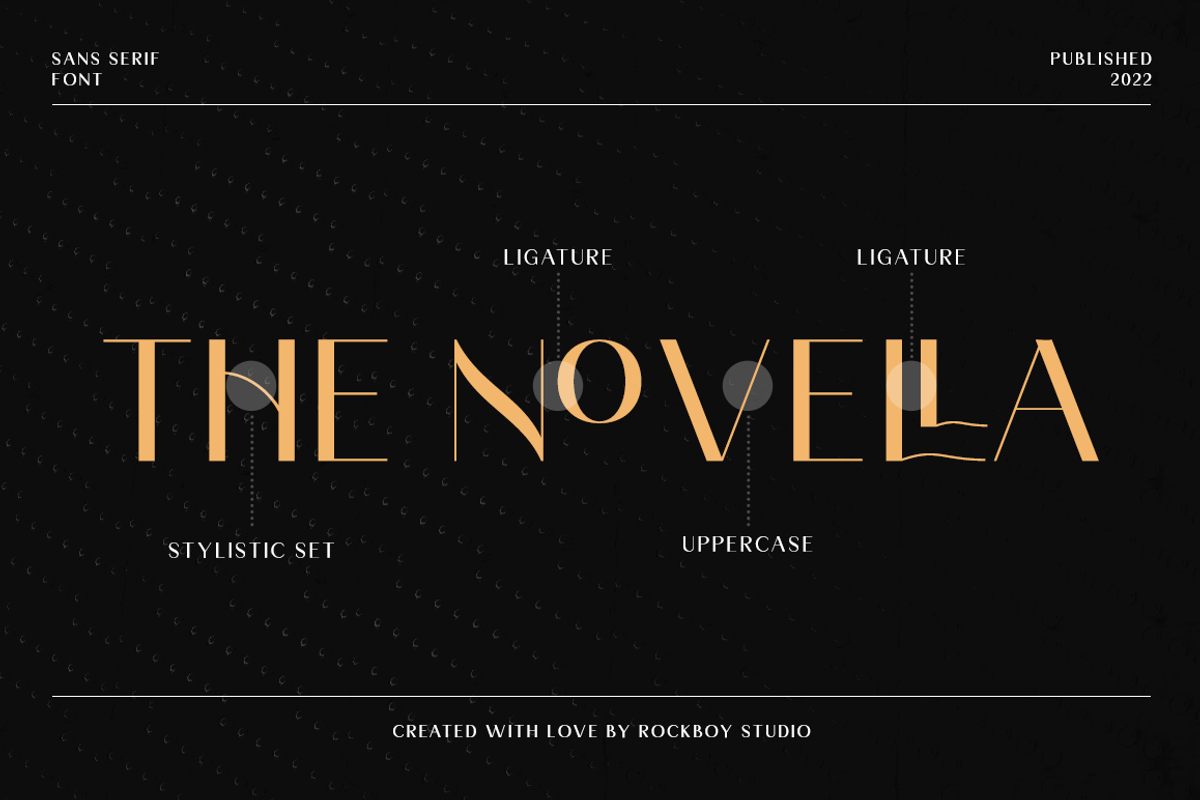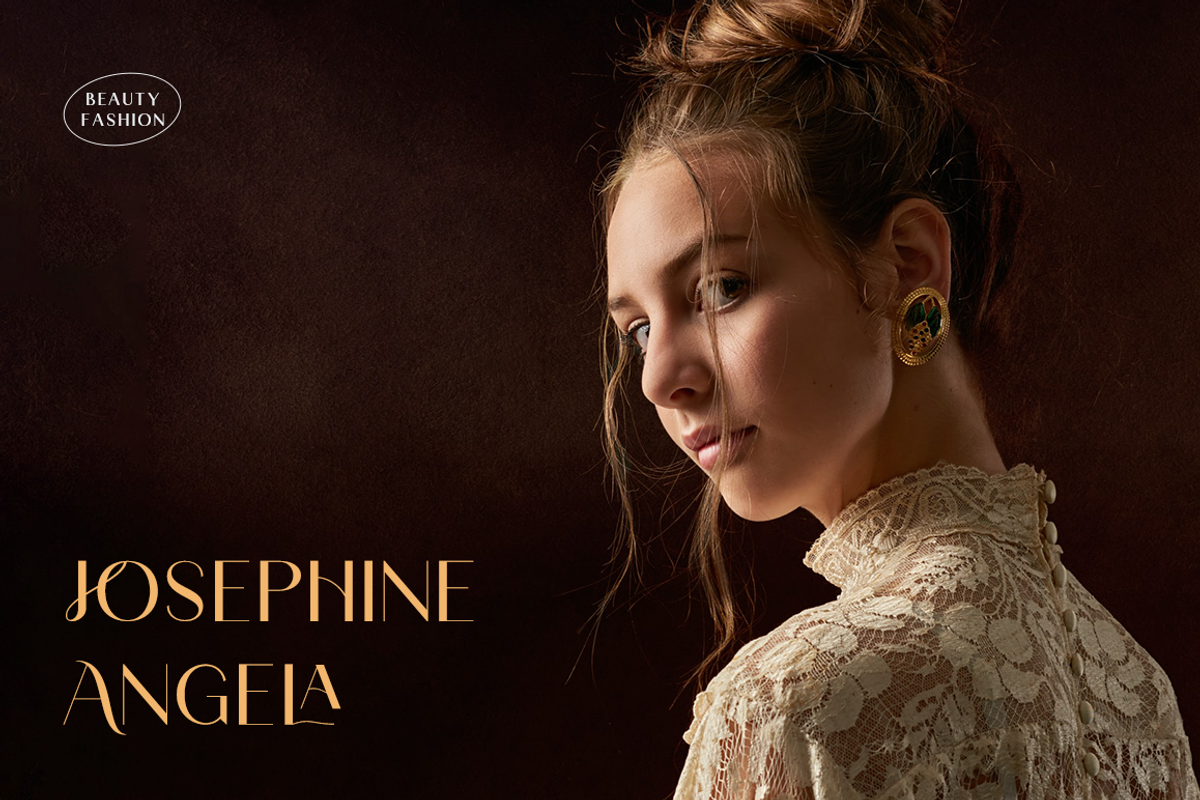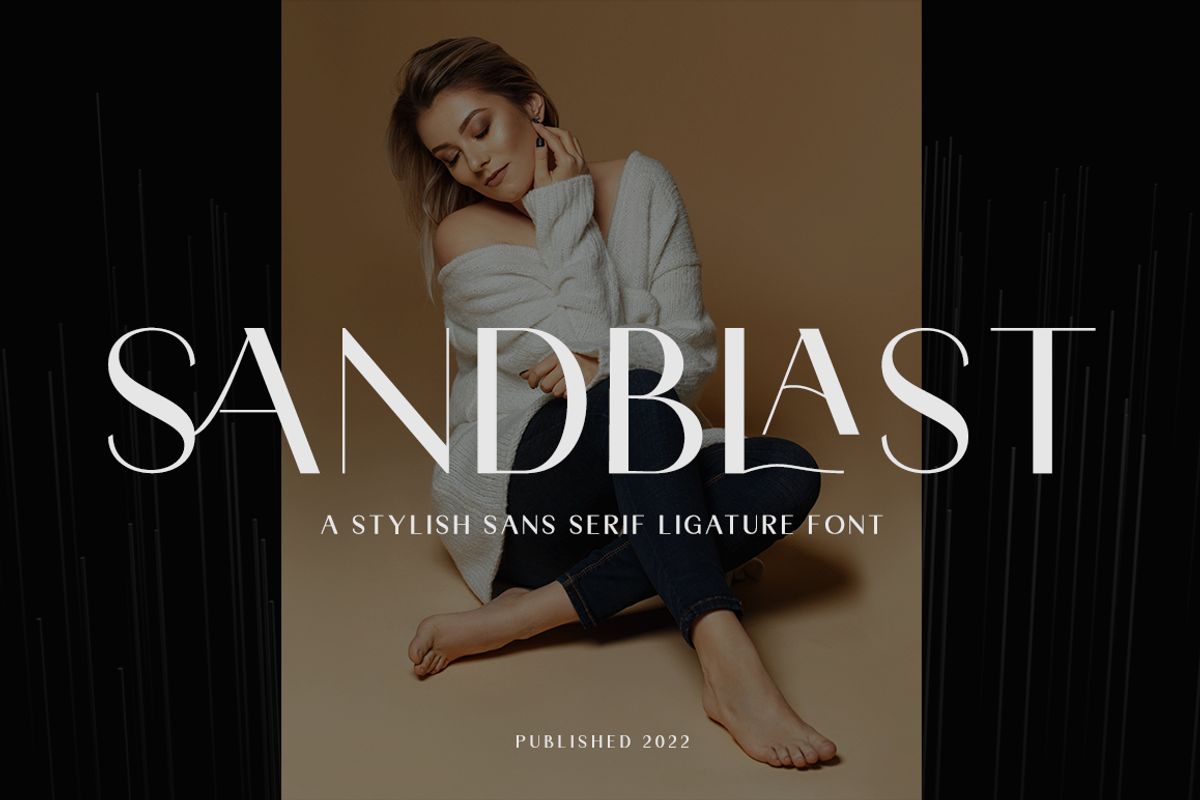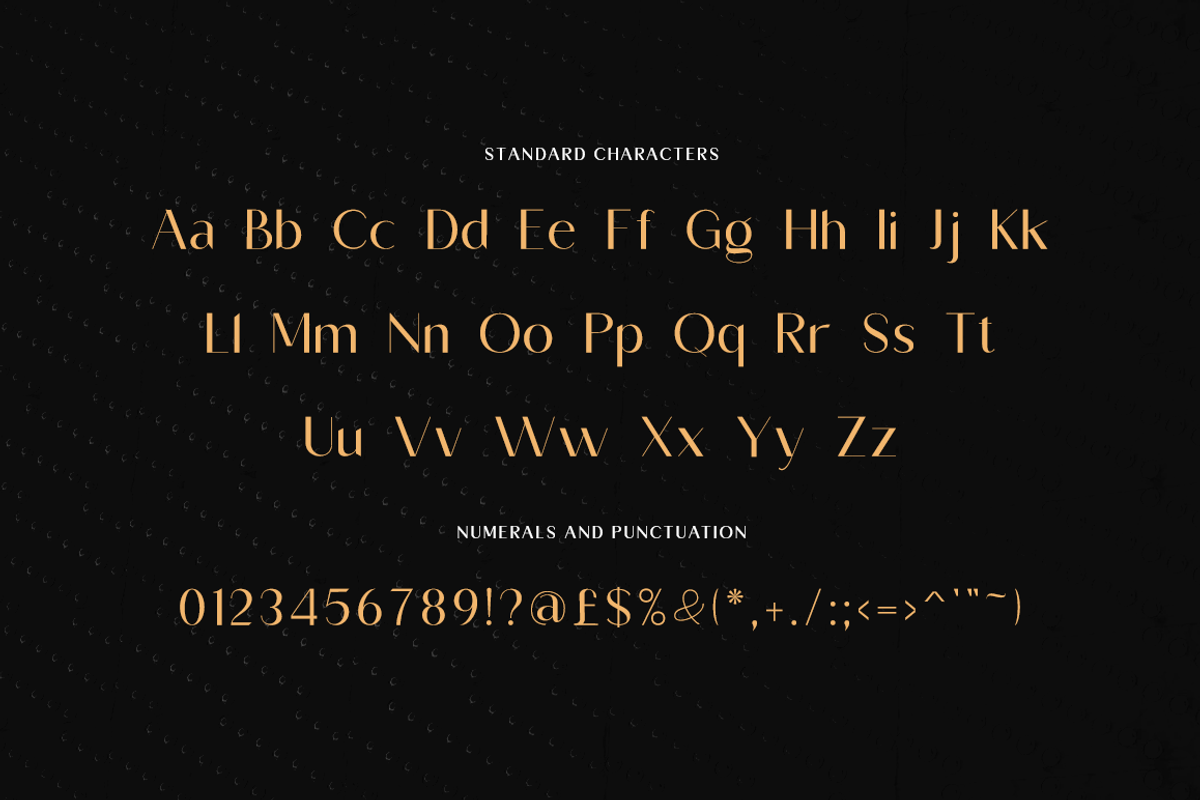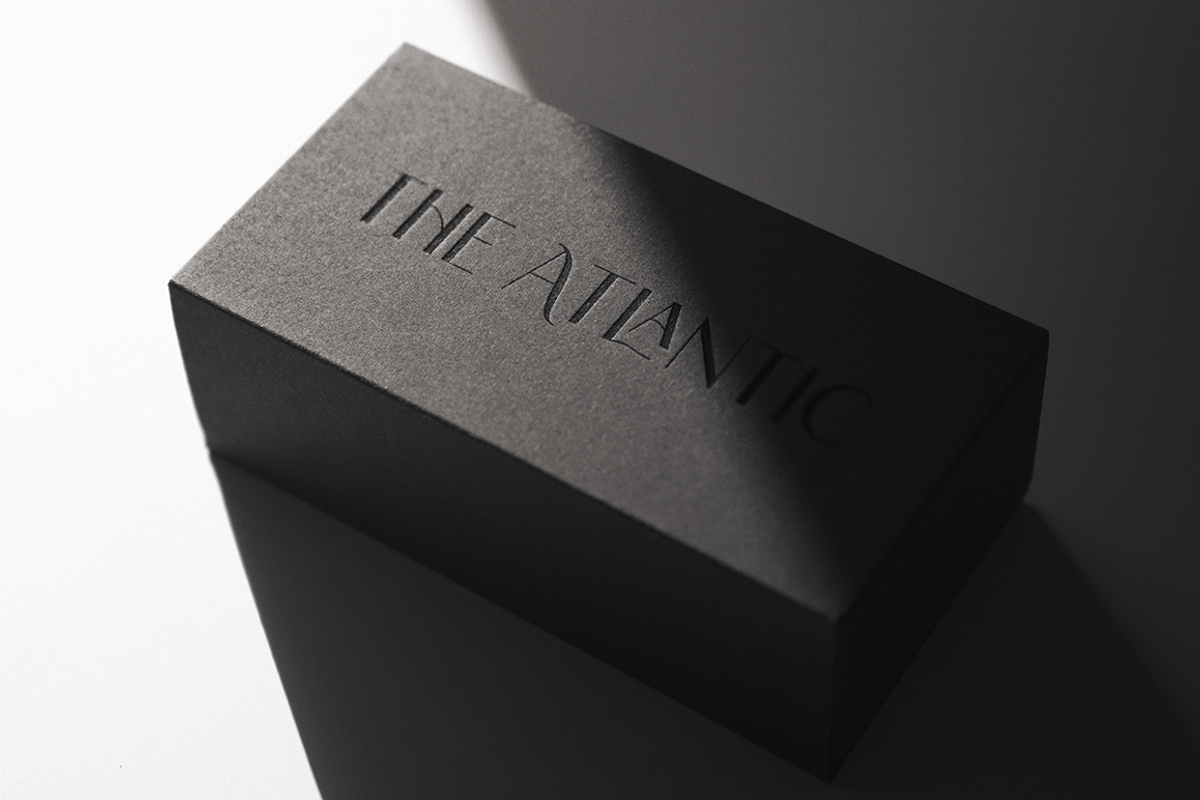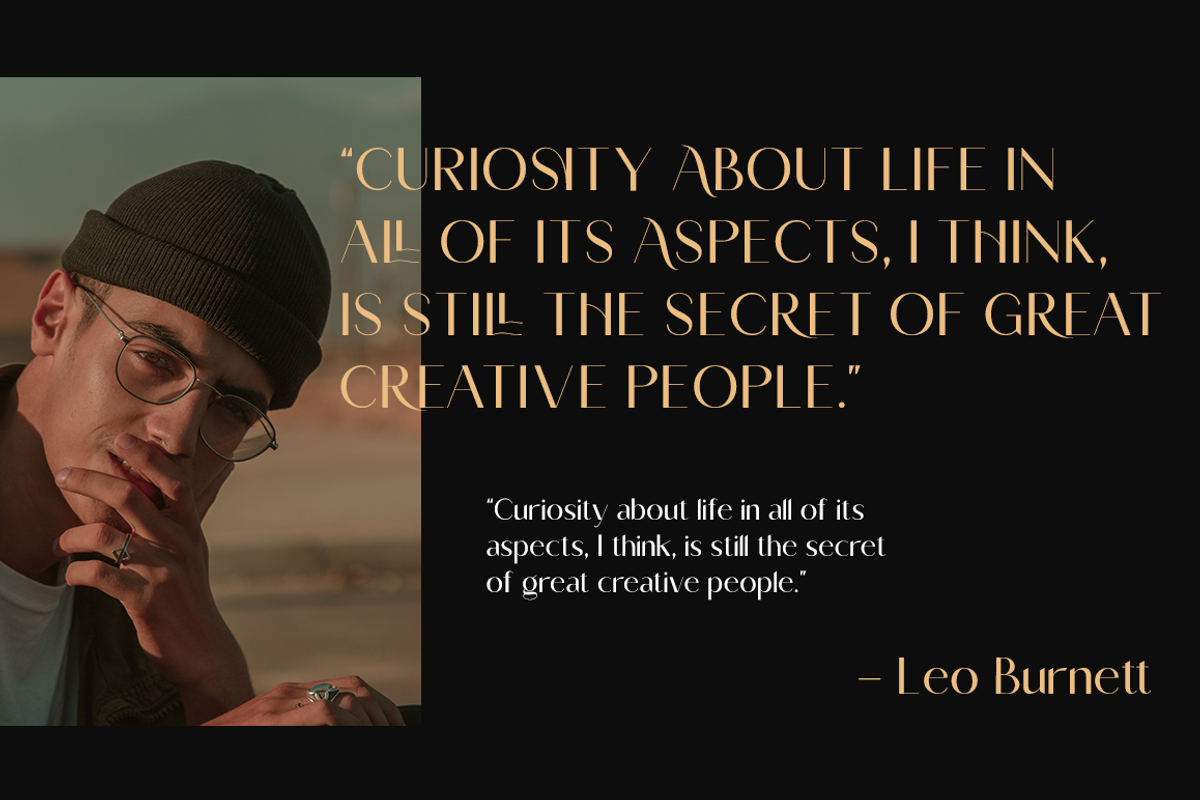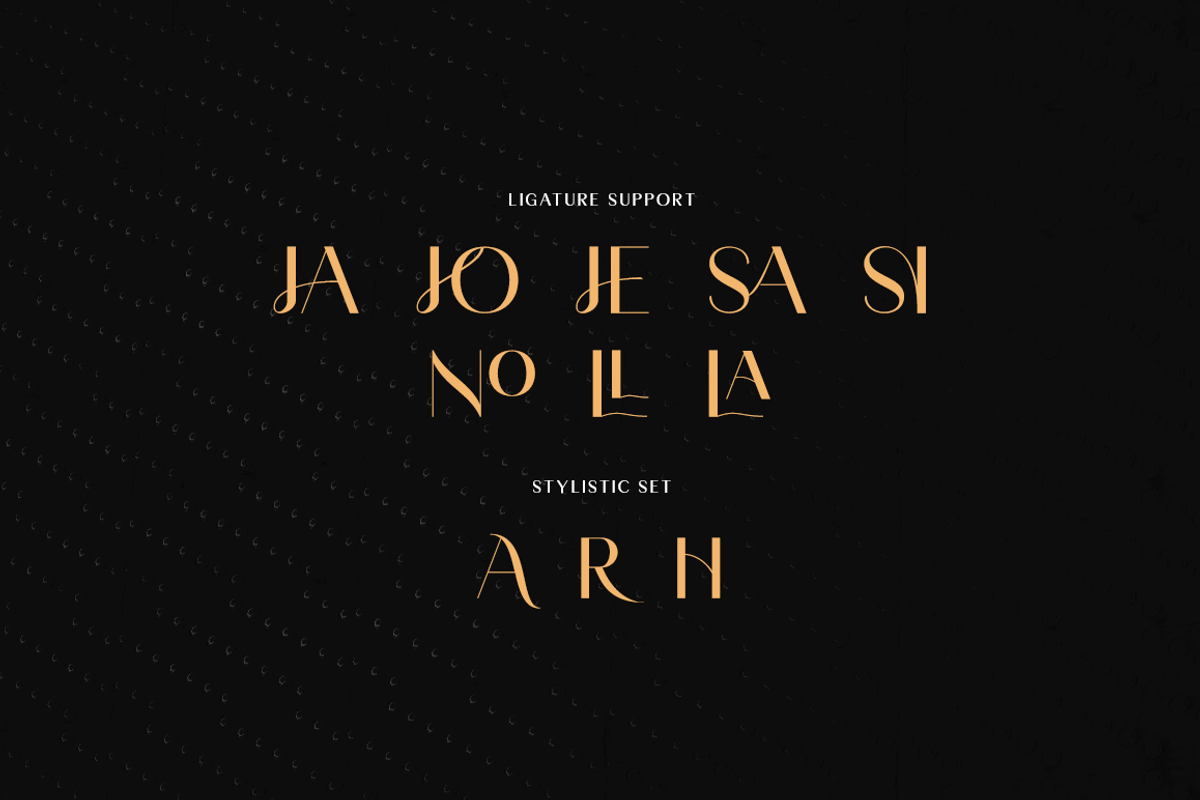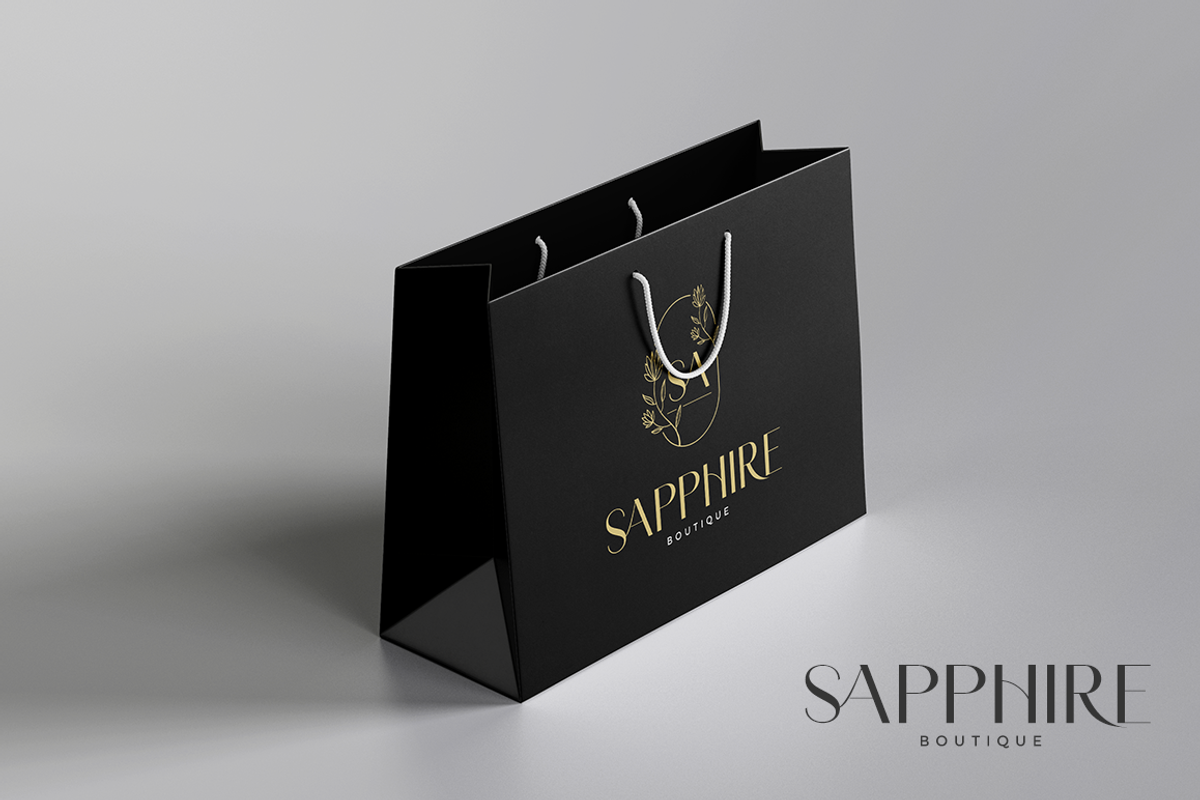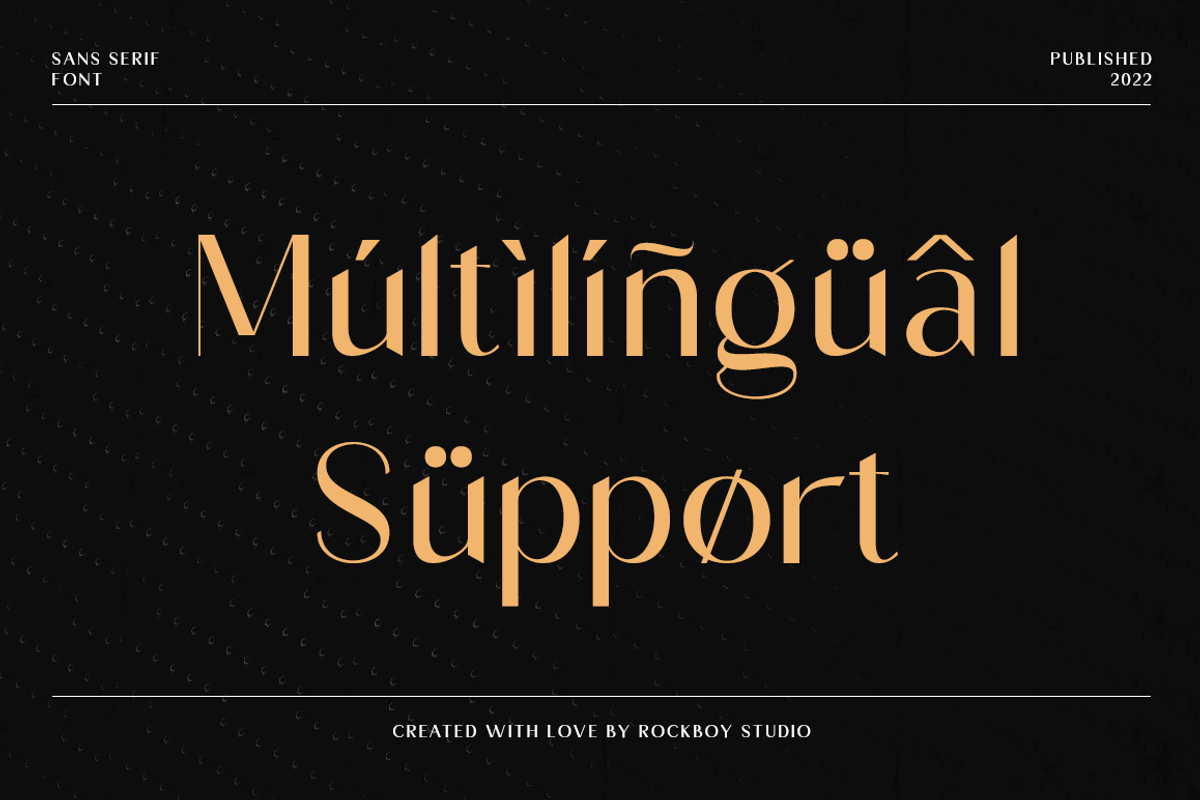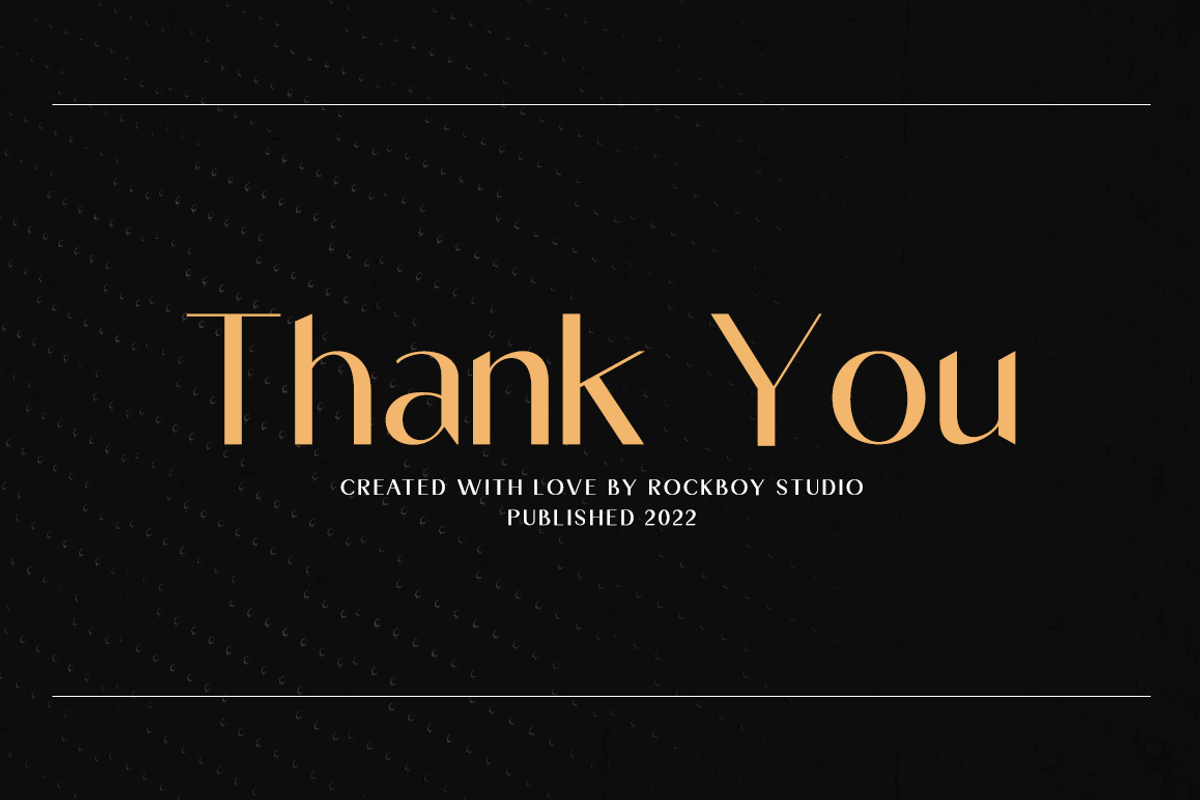
Sandblast - Fashion Font
Sandblast is an elegant and beautiful sans serif font. It will elevate a wide range of crafting ideas, from cards to branding, labels, and many more. Add it to any of your creative projects, and make them look extraordinary!